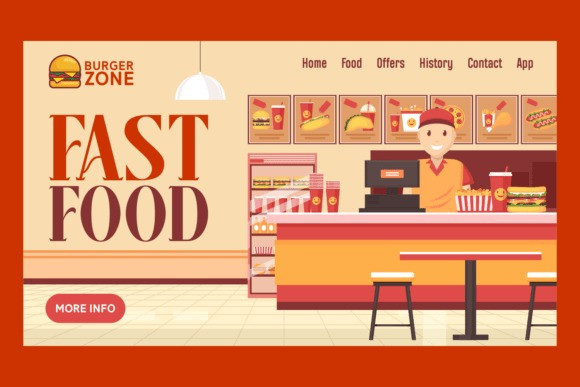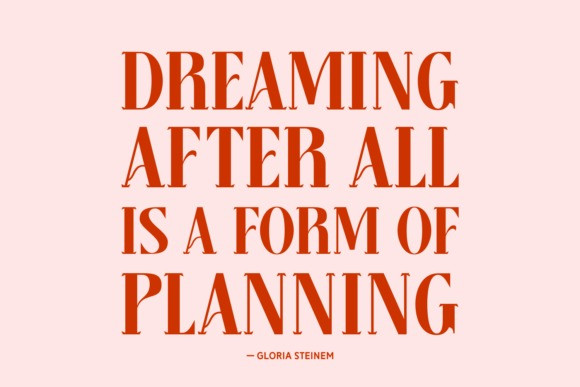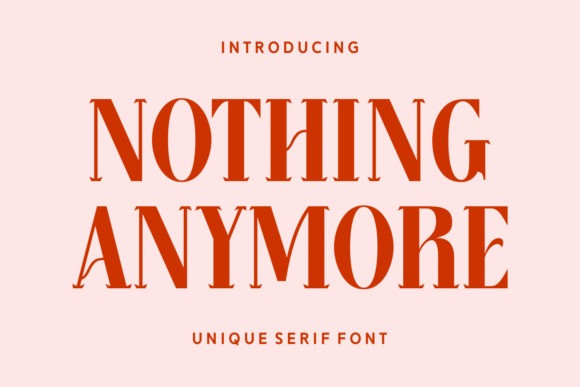
Nothing Anymore Font
Nothing Anymore Font a unique serif typeface that elegantly blends modern and traditional styles, creating a perfect synergy. Framed with an authentic touch, this font is a seamless fit for photography accents or apparel branding. Make your book covers and magazines stand out with its clean yet distinctive charm, or bring a layer of sophistication to your logotypes and branding projects. It also delivers aesthetic appeal to greeting cards or packaging designs, crafting a smooth and engaging visual language. Be it on bold headlines of a trendy T-shirt or adding finesse to poignant quotes, the “Nothing Anymore” font stamps its mark in every creative endeavor.